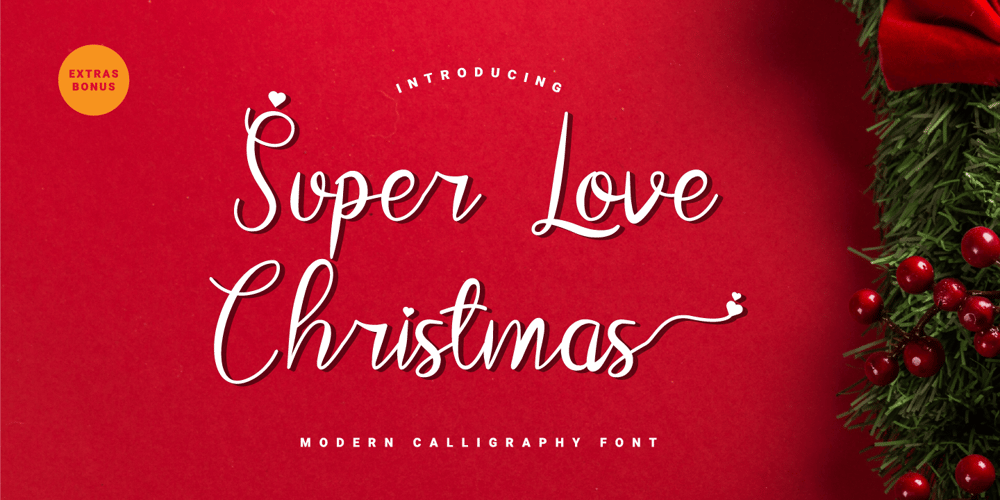
Super Love Christmas
Super Love Christmas font
Super Love Christmas Font Family was designed by Prio Nurokhim Aji and published by Prioritype. Super Love Christmas contains 1 styles and family package options. Here comes a special Christmas font with a beautiful and unique shape equipped with various alternative characters and of course there are extra bonuses. This font makes it easy for you in various projects that you create. Can be applied to print and digital media such as invitations, clothes, crafts, packaging, and there is still so much to explore. For reference, see preview.Features:-Uppercase-Lowercase-Numeral-Punctuation-Multilingual-Ligature-Alternate-Extra Bonus